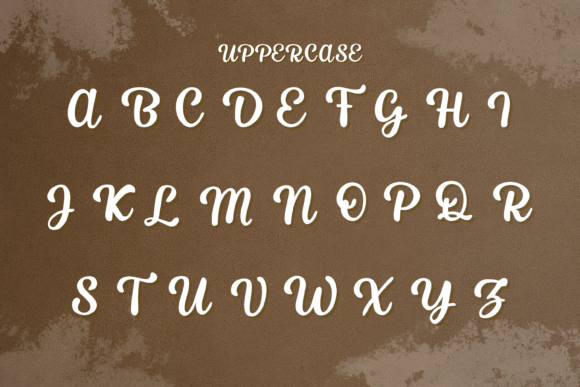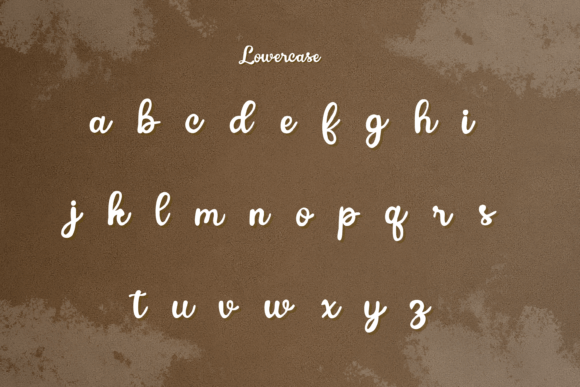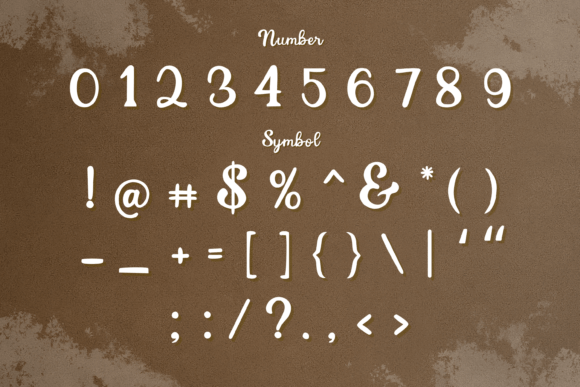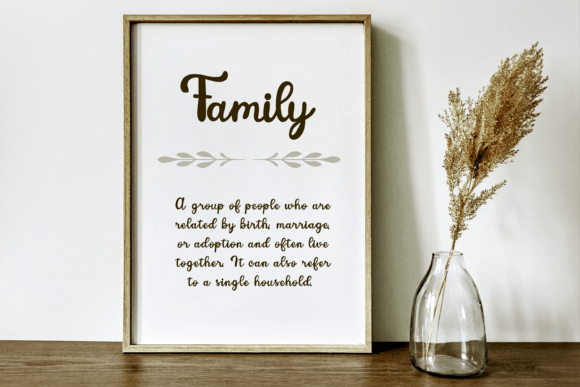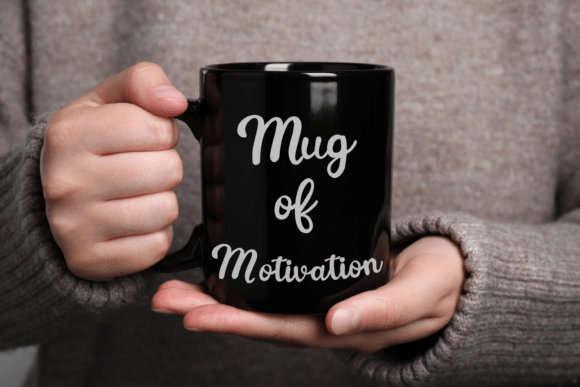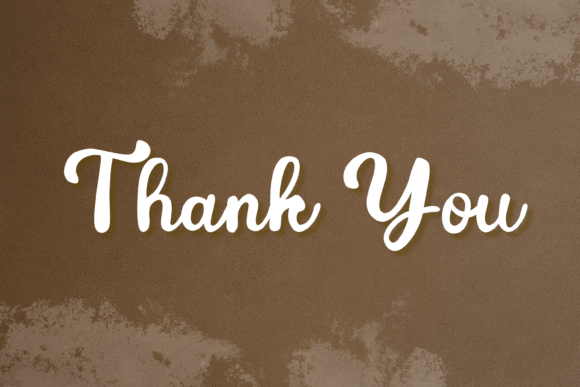
Meet Your New Best Friend in Design: Baby Lucy Font
Have you ever stared at a blank page, feeling stuck and unsure of where to start? The cursor blinks impatiently as your mind goes blank, and all you can think of is a warm cup of coffee and a creative spark to get those ideas flowing. That’s exactly when you need a font that whispers sweet nothings in your ear, urging you to take a chance and create something beautiful.
Enter Baby Lucy Font, a charming and playful font that’s designed to bring warmth and personality to your projects. With its smooth, flowing letterforms and soft curves, Baby Lucy Font is the perfect companion for designers who want to add a touch of whimsy to their work. Whether you’re creating logos, invitations, or social media graphics, this font is sure to add a delightful and stylish touch.
As a PUA-encoded font, Baby Lucy Font offers effortless access to all glyphs, swashes, and alternate characters, making it a valuable asset for designers who want to add an extra layer of creativity to their work.
- Unique Characteristics: The Baby Lucy Font is a playful, cursive script font with a soft, rounded design that is perfect for creating a whimsical and childlike atmosphere.
Baby Lucy Font Review
At first glance, Baby Lucy Font seems like a lovely script font perfect for creating a whimsical atmosphere in children’s book illustrations or nursery decor. ✨ I appreciate its friendly, approachable feel, which immediately draws the viewer in.
Here are some aspects that work well:
- ✨ Unique and elegant design elements: Baby Lucy Font features a beautiful, flowing design that adds a touch of sophistication to any text.
- ✨ Versatility: This font can be used in a wide range of contexts, from children’s books to greeting cards and gift tags.
- ✨ Good for small text: Baby Lucy Font looks great even in small text sizes, making it perfect for titles, captions, and other text elements.
However, I’ve encountered some limitations:
- ⚠️ Limited character set: Baby Lucy Font doesn’t support all languages and character sets, which might be a problem for designers working on multilingual projects.
- ⚠️ Not ideal for large text blocks: While Baby Lucy Font looks great in small text sizes, it can become difficult to read in large blocks of text.
Overall, I think Baby Lucy Font is a lovely addition to any designer’s toolkit. While it has some limitations, its unique design and versatility make it a great choice for many projects.
Getting the Most Out of Baby Lucy Font
To get the most out of Baby Lucy Font, use it for:
1. Children’s products, such as nursery decorations or children’s books.
2. Whimsical or playful designs, such as party invitations or greeting cards.
3. Branding or marketing materials that require a youthful and playful tone.
Alternatives to Baby Lucy Font
The Baby Lucy Font is a beautiful, elegant script font that is perfect for creating a whimsical and feminine touch in designs. However, it may not be the best choice for every project. Here are a few alternatives that designers can consider: